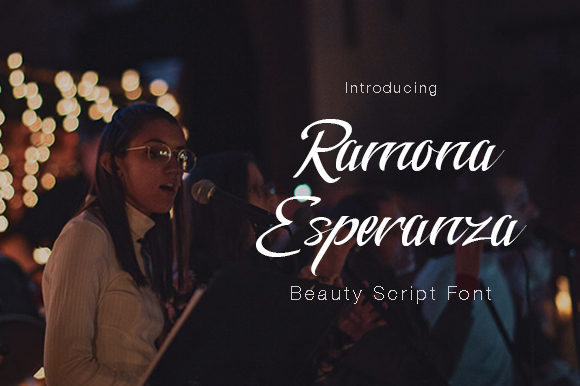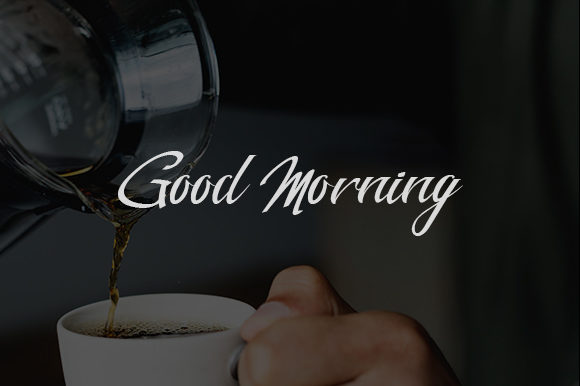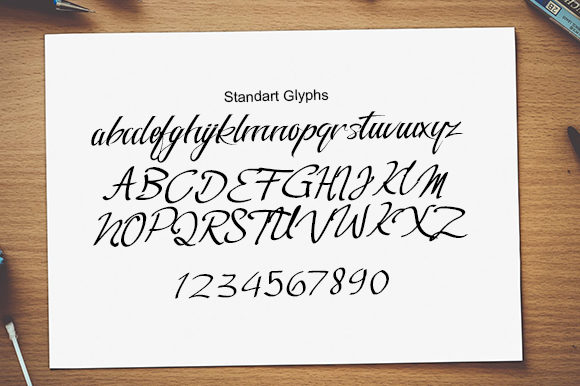
About Ramona Esperanza Font
The Ramona Esperanza is a stylish, fresh handwritten signature script with a classy touch.
It’s perfect for branding projects, logos, wedding designs, social media posts, advertisements, product packaging, product designs, labels, photography, watermarks, invitations, stationery and every other project that needs a handwriting taste.